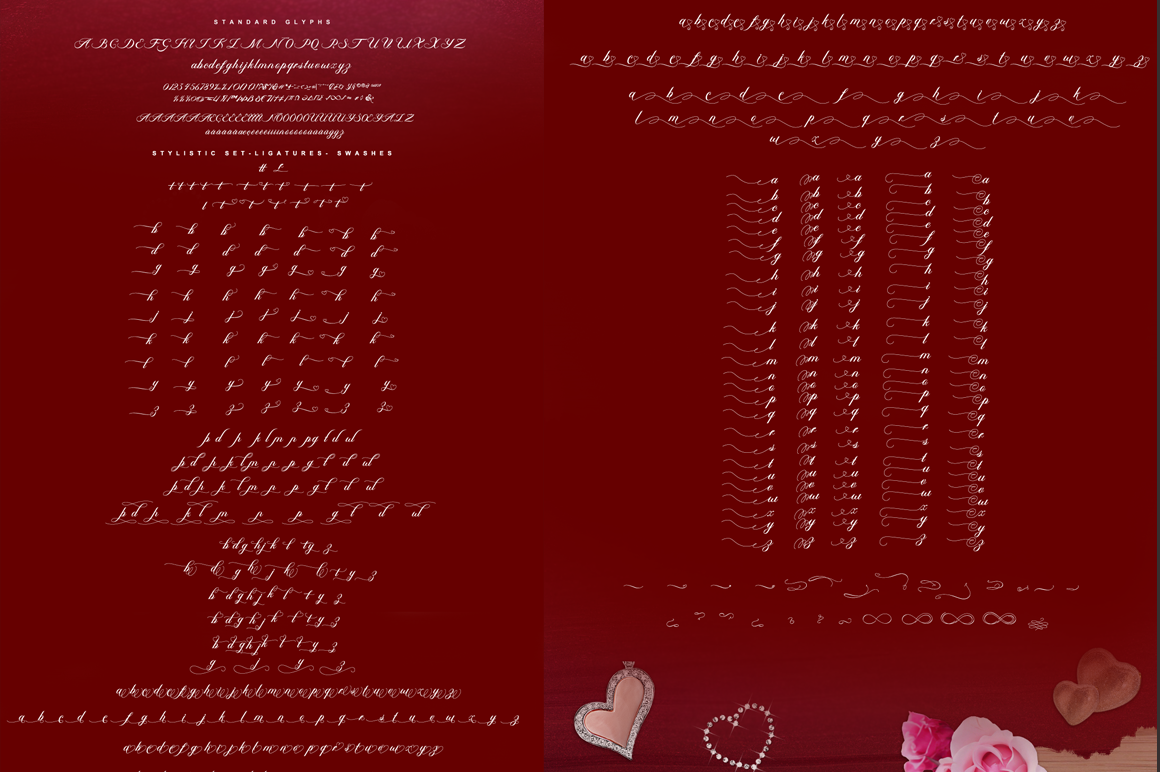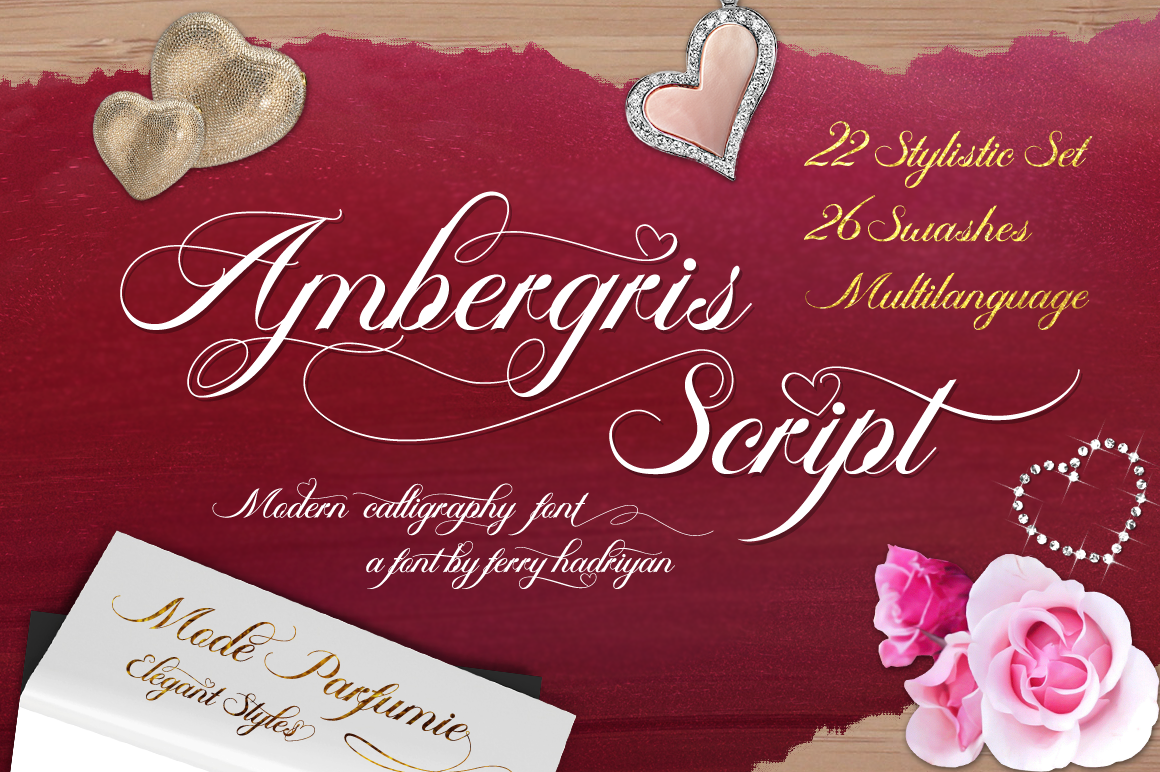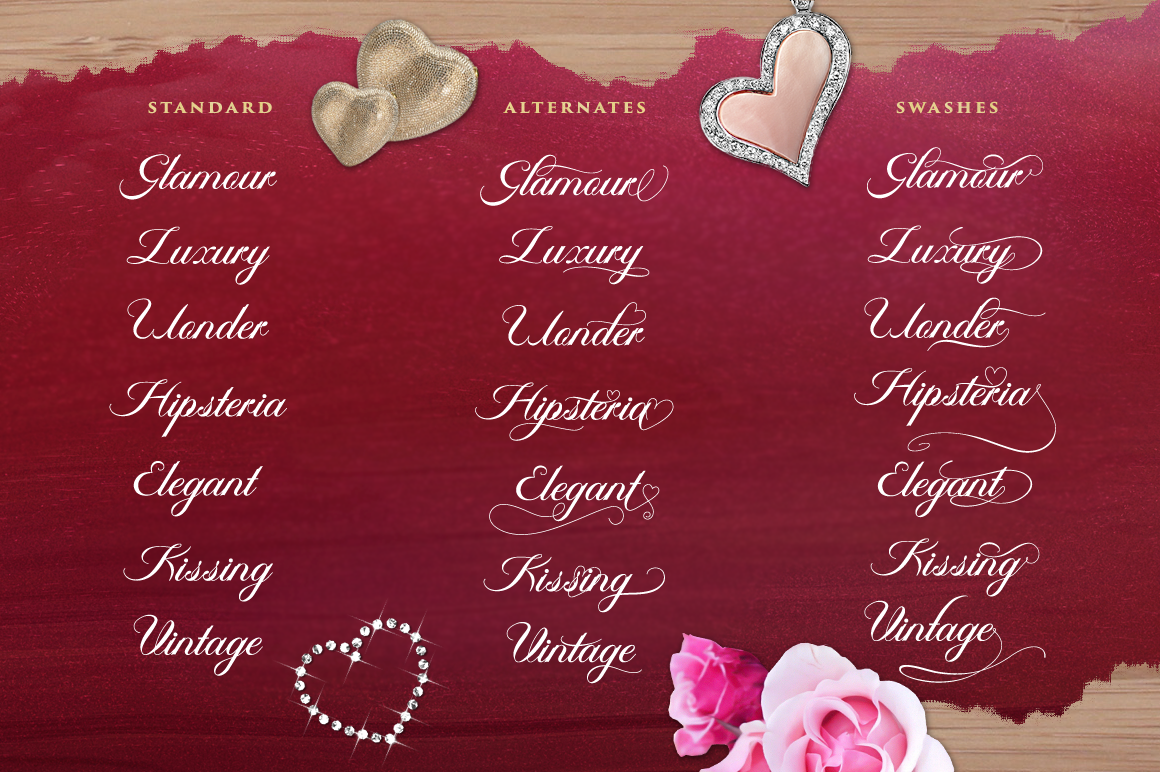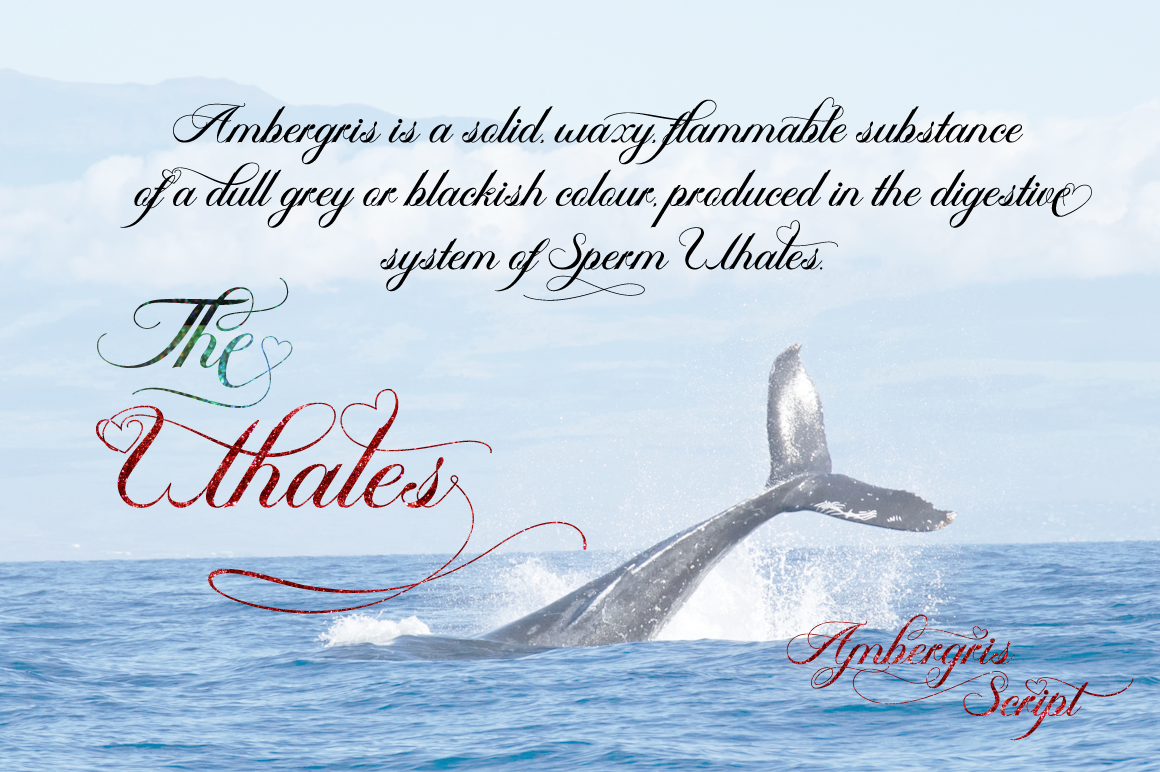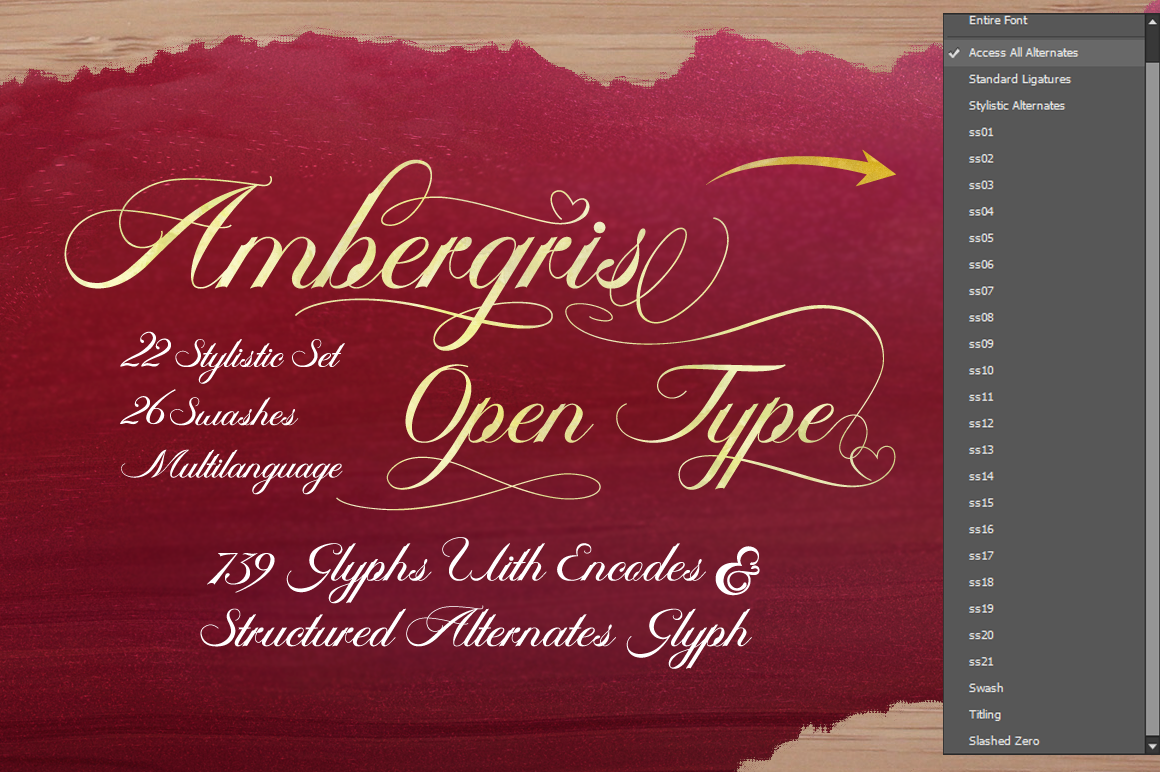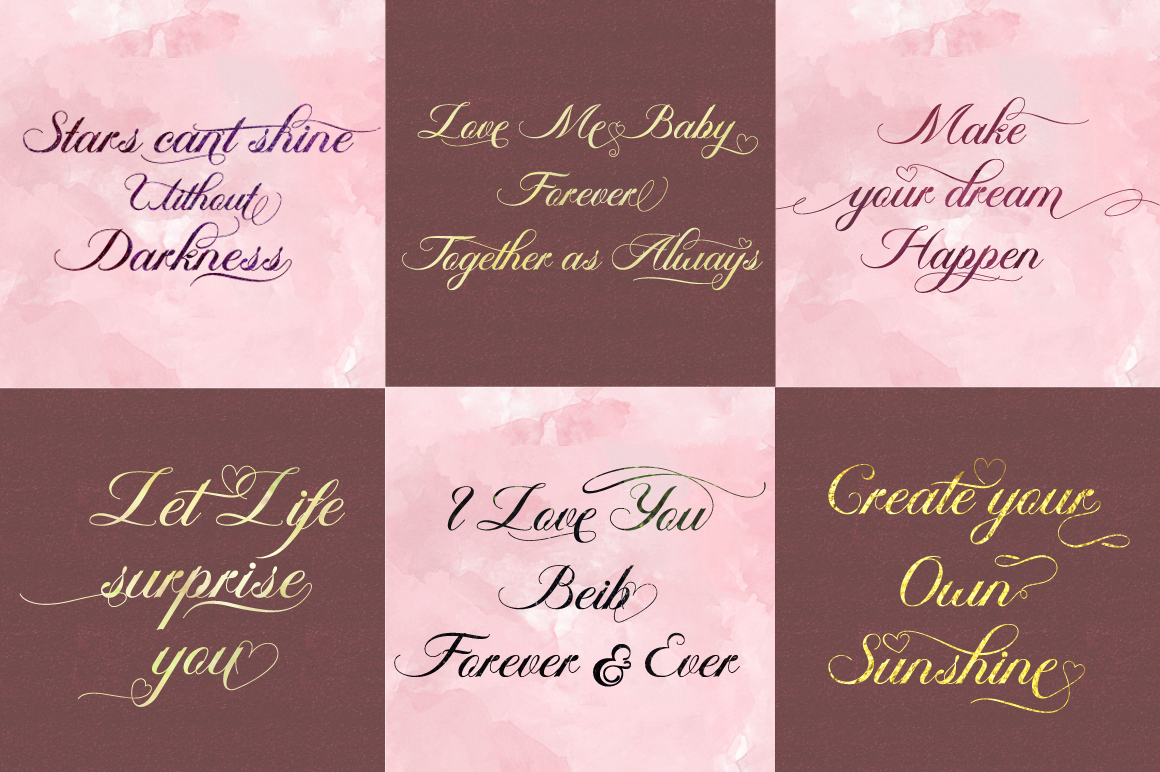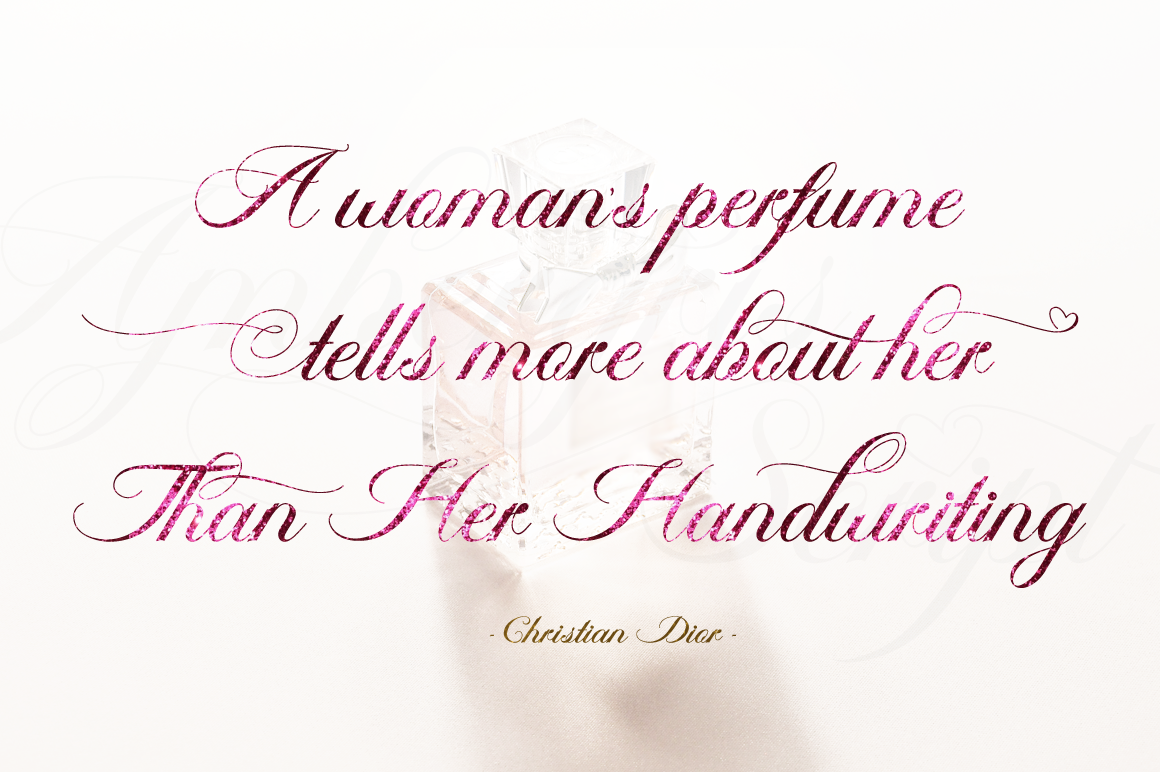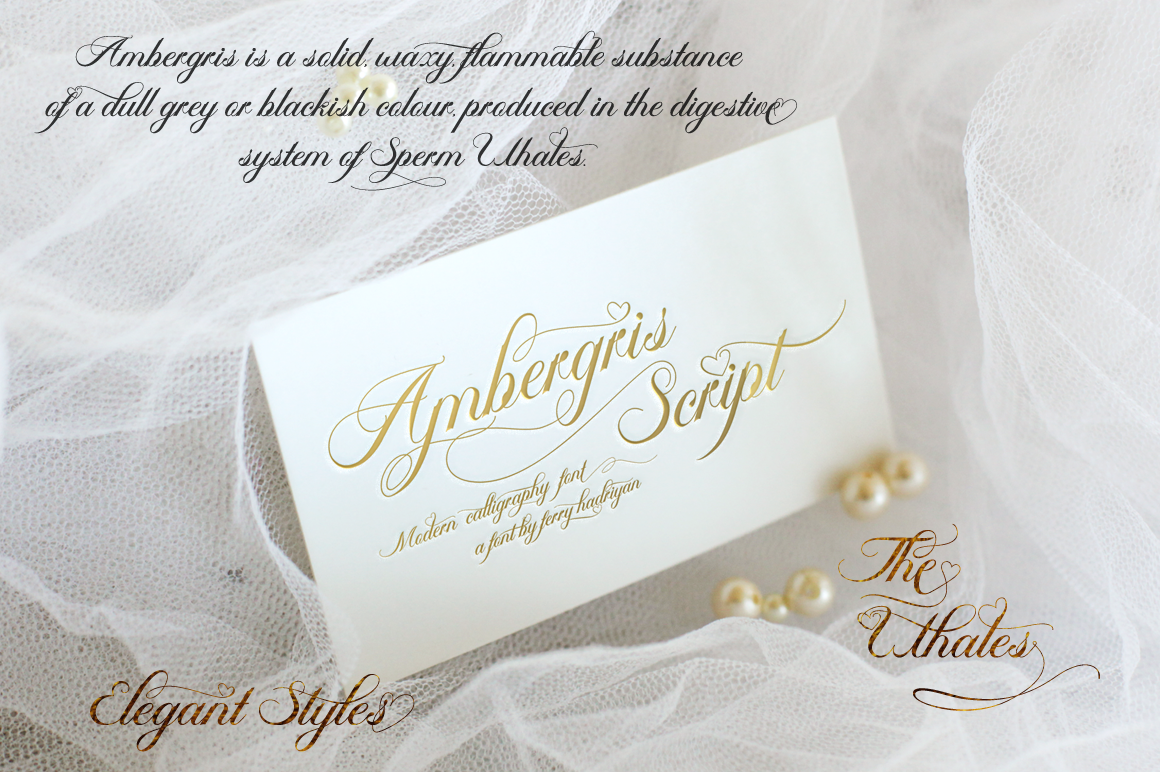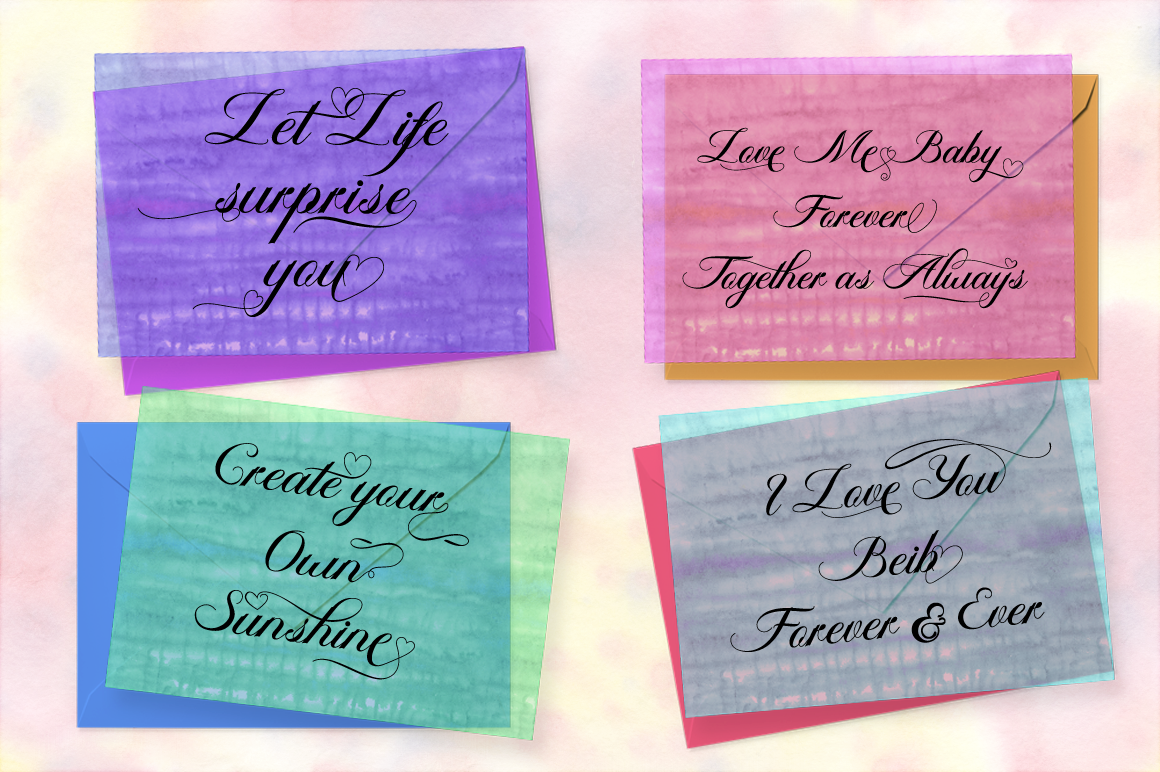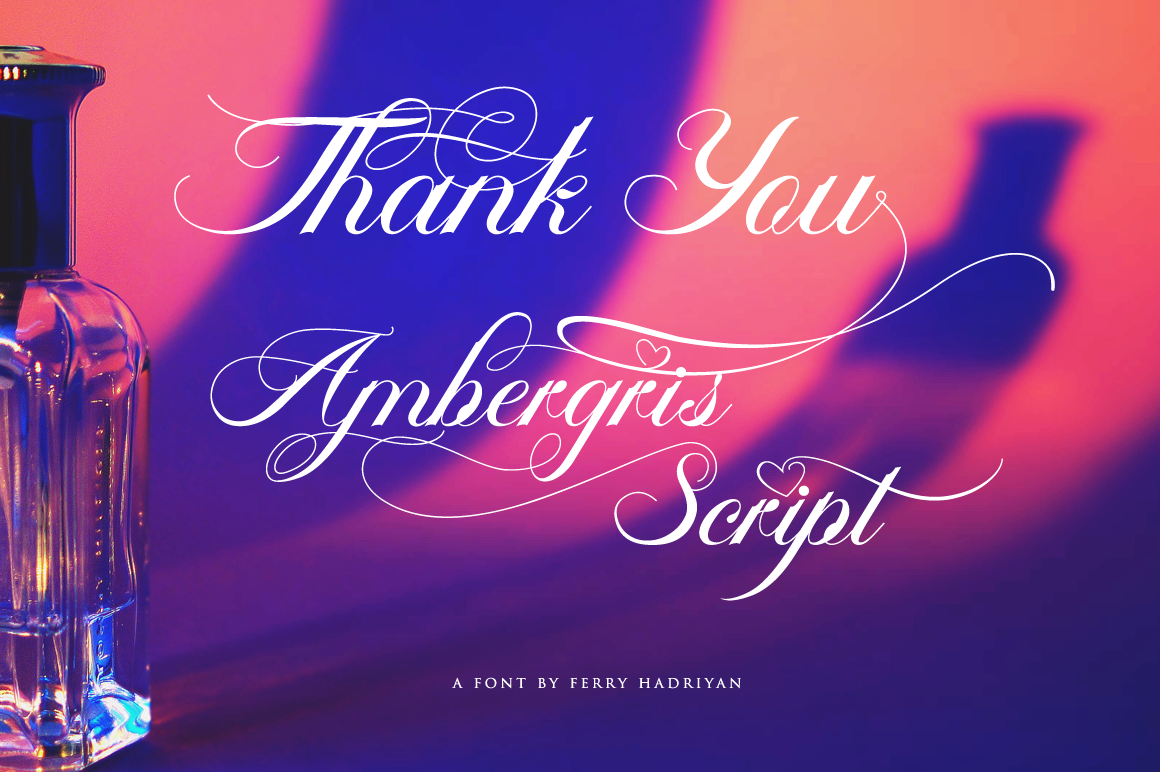
Ambergris – Script Font
Ambergris is a script font with modern calligraphy style, so much feature OpenType with swashes, 22 stylistic sets, standard ligatures, Titling, Swashes, etc, Suitable for design, element design, wedding, event, t-shirt, logo, badges, sticker, and awesome work, etc…
Feature of The Font:
– Combination alternative ligature fonts
– Standard Ligatures, Stylistic Set, Multilanguage Characters, etc
– Modern Calligraphy Typeface
– Multilanguage Support
– Unique style fonts